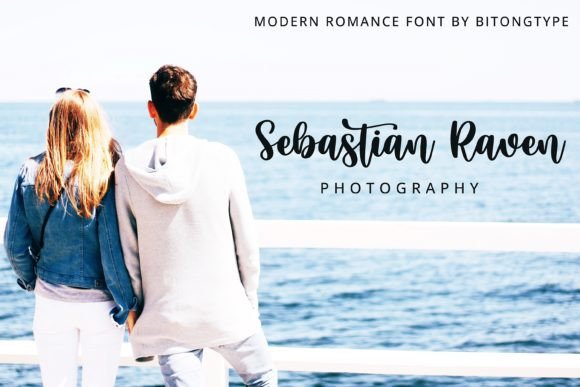
Modern Romance Font
Modern Romance is a cool, friendly, and informal handwritten font that can be used for all chalkboard quotes or teaching material! Its authentic look and feel will add a personal and realistic touch to your designs.